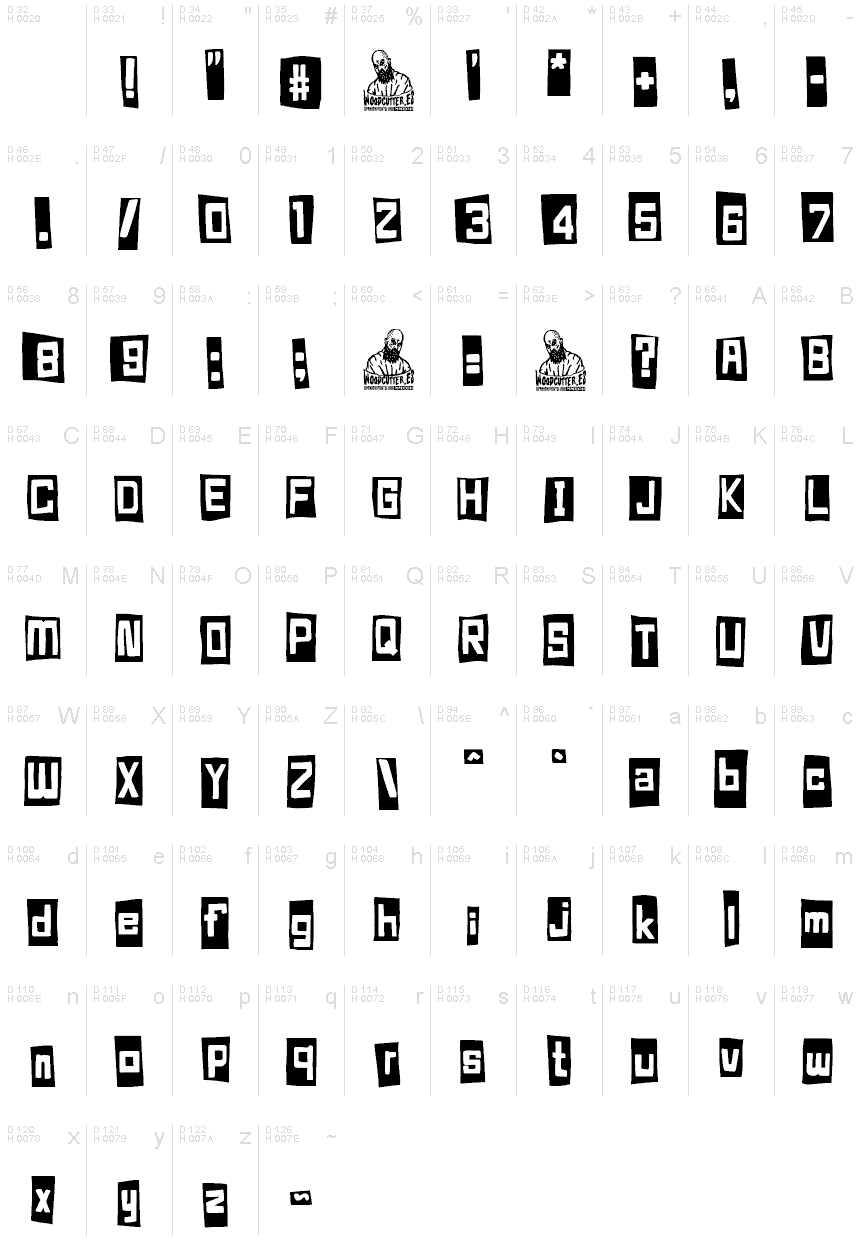
Happy Cube
Happy Cube font by Woodcutter is a playful and quirky display font that brings irregular shapes in unique ways. Each character seems to have been cut out of paper while slight imperfections give it its simply distinct fun look. It is decorative, condensed, modern, and graphic all at the same time.
Use this free decorative font in book covers, greeting cards, posters, advertisements, signs and wayfinding designs, blogs, magazines and newspapers. This list can be extended with additional use cases that can include such as calendars or bookmarks. All ideas are fine as long as the design core is fun in tone!